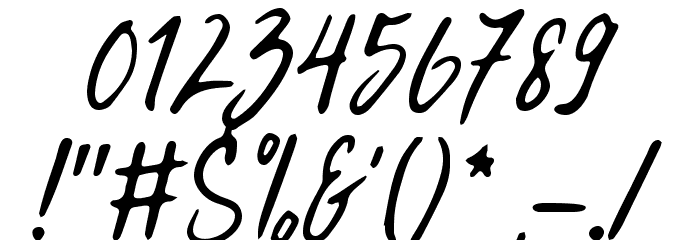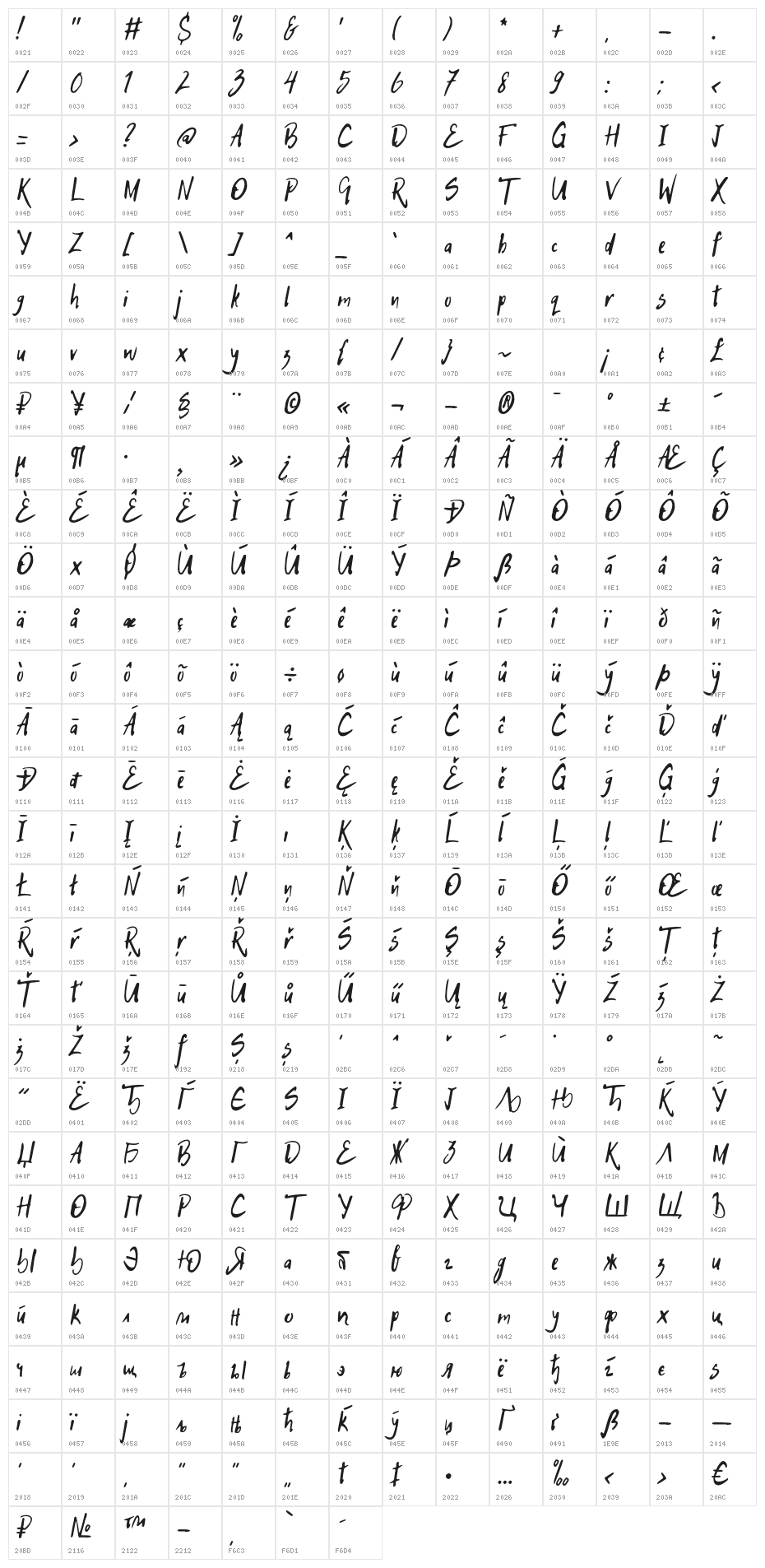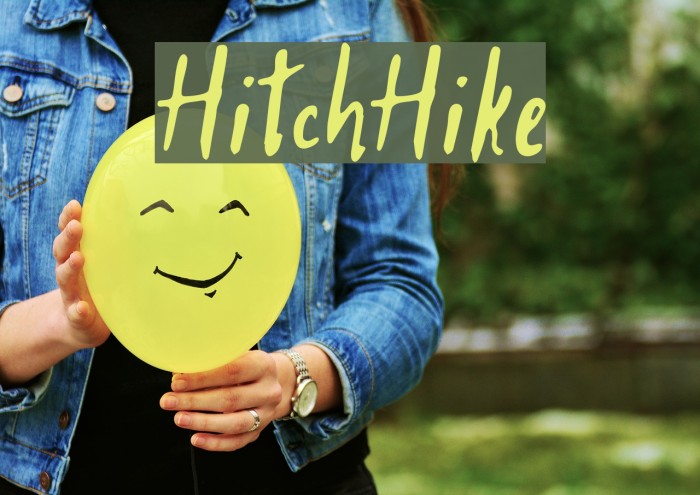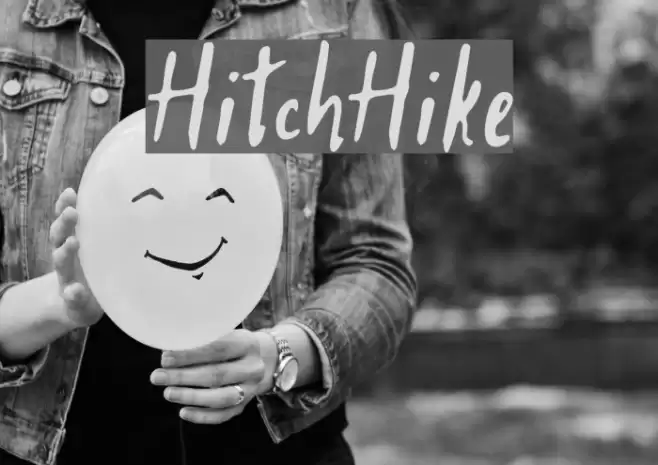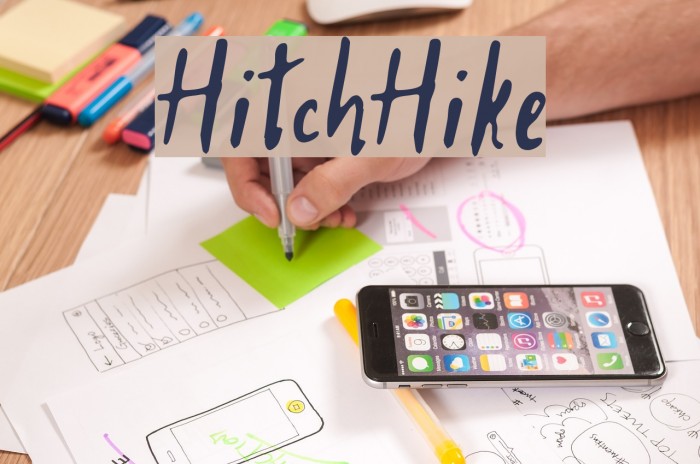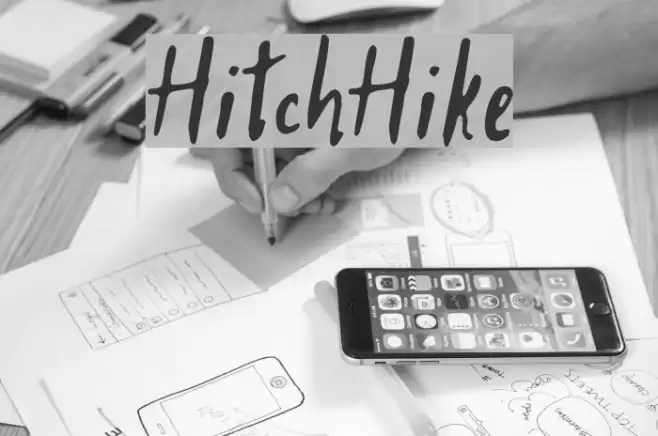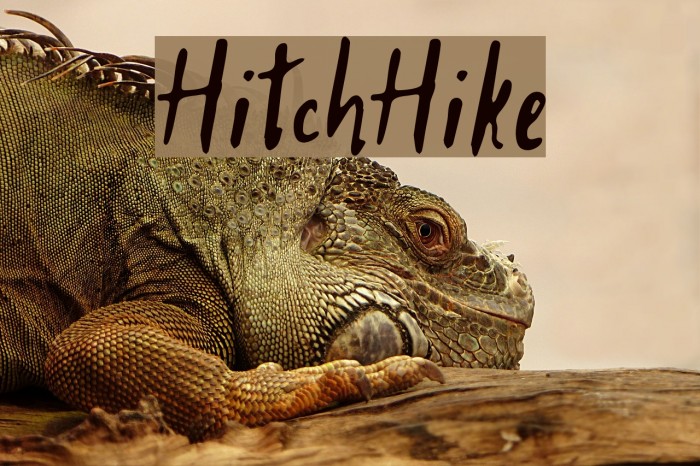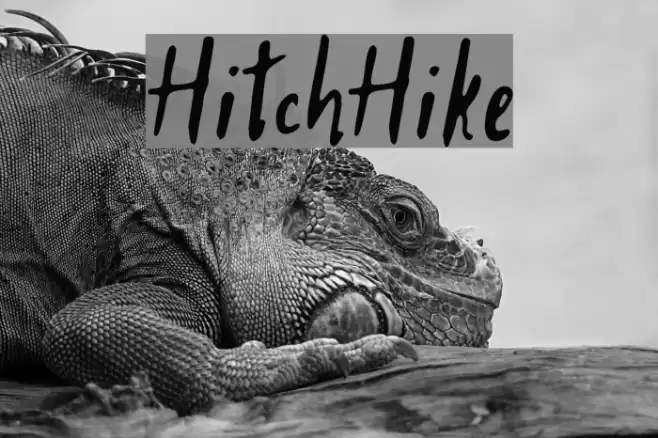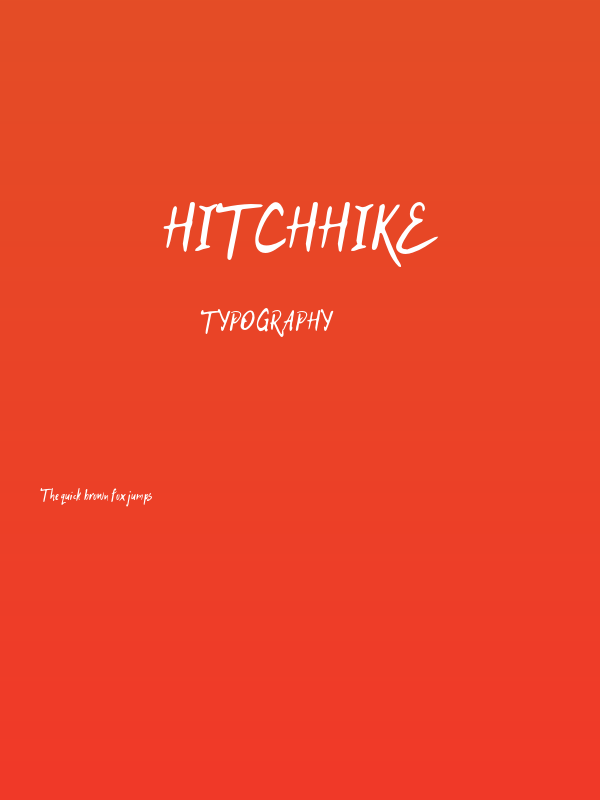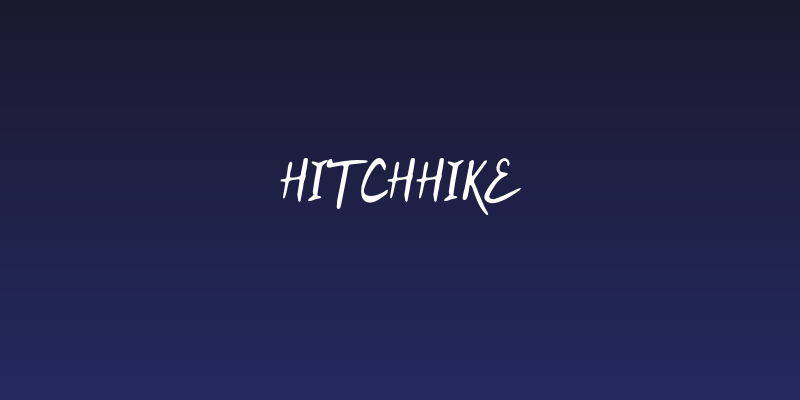
HitchHike Font
HitchHike Description
This font exudes a lively and dynamic energy, characterized by its handwritten style that mimics the fluidity of natural handwriting. The letters are slightly slanted, giving a sense of motion and informality. The strokes vary in thickness, adding a touch of spontaneity and artistic flair. The uppercase letters are bold and prominent, while the lowercase letters maintain a consistent flow, enhancing readability. The numerals and special characters follow the same energetic style, making them cohesive with the overall design. This font is perfect for projects that require a personal touch or a creative, informal vibe.